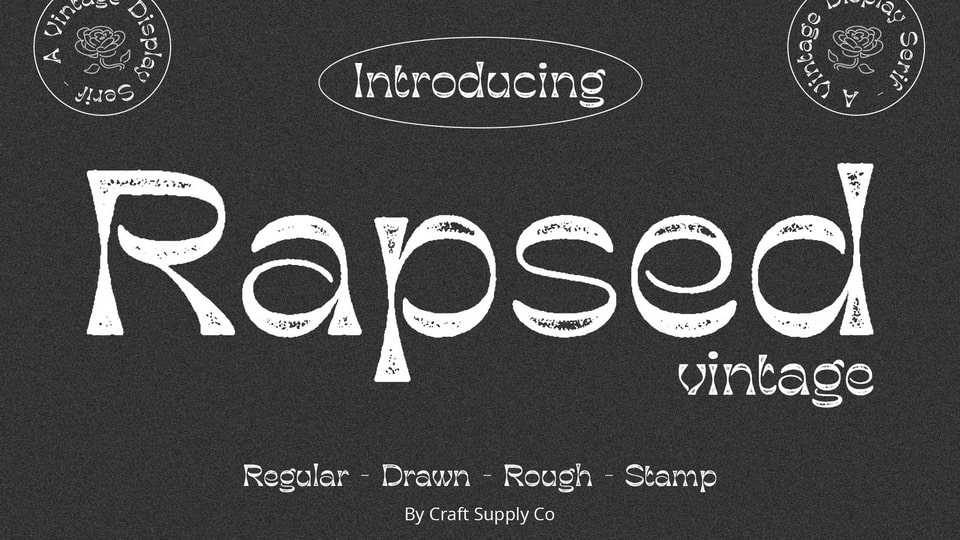
Rapsed Vintage Font › Fontesk – Download Grátis
Download Rapsed Vintage font, a unique serif typeface, embodying a retro and vintage feel. It features a grunge, stamped, rough appearance, ideal for nostalgic designs.
Designer: Craft Supply Co